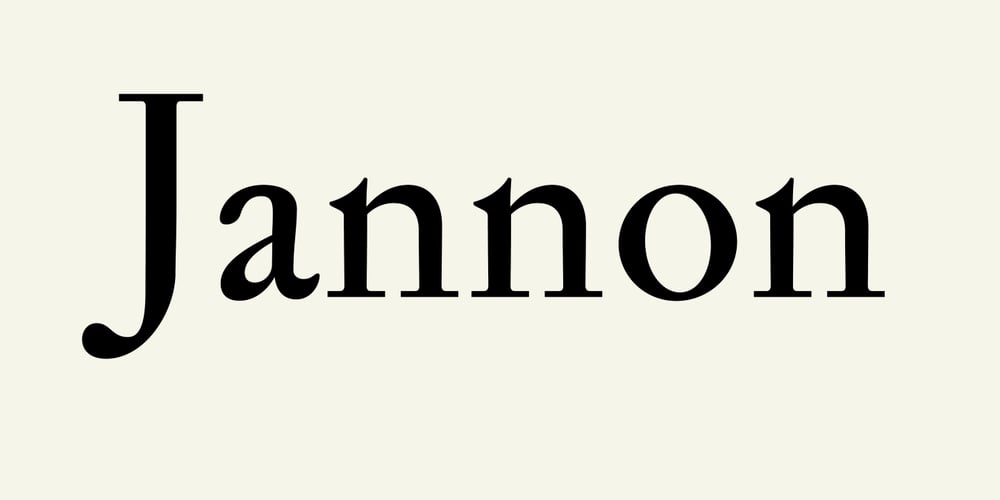
Jannon Pro Font Family was designed by František Štorm and published by Storm Type Foundry. Jannon Pro contains 11 styles and family package options. The engraver Jean Jannon ranks among the significant representatives of French typography of the first half of the 17th century. From 1610 he worked in the printing office of the Calvinist Academy in Sedan, where he was awarded the title “Imprimeur de son Excellence et de l’Academie Sédanoise”. He began working on his own alphabet in 1615, so that he would not have to order type for his printing office from Paris, Holland and Germany, which at that time was rather difficult. The other reason was that not only the existing type faces, but also the respective punches were rapidly wearing out. Their restoration was extremely painstaking, not to mention the fact that the result would have been just a poor shadow of the original elegance. Thus a new type face came into existence, standing on a traditional basis, but with a life-giving sparkle from its creator. In 1621 Jannon published a Roman type face and italics, derived from the shapes of Garamond’s type faces. As late as the start of the 20th century Jannon’s type face was mistakenly called Garamond, because it looked like that type face at first sight. Jannon’s Early Baroque Roman type face, however, differs from Garamond in contrast and in having grander forms. Jannon’s italics rank among the most successful italics of all time – they are brilliantly cut and elegant.